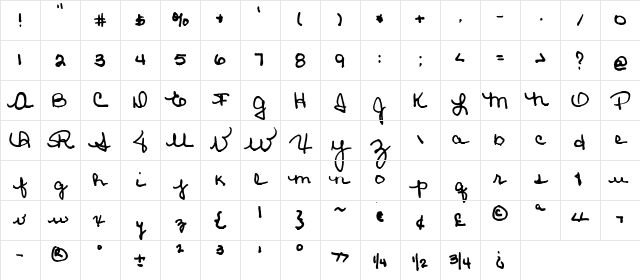
C Robles Regular
Design Context for C Robles
C Robles is a composed and adaptable typeface that performs quietly and consistently across a wide range of design contexts.